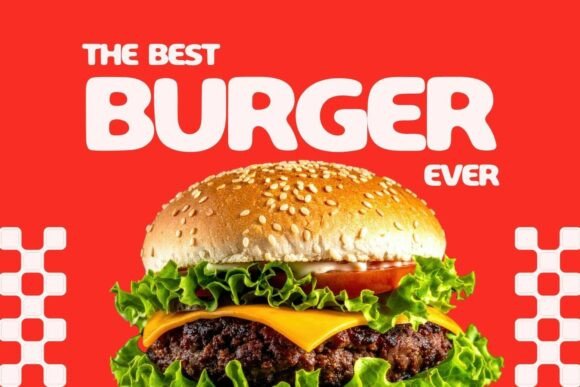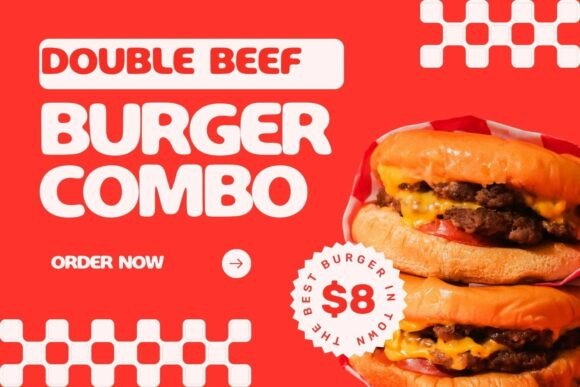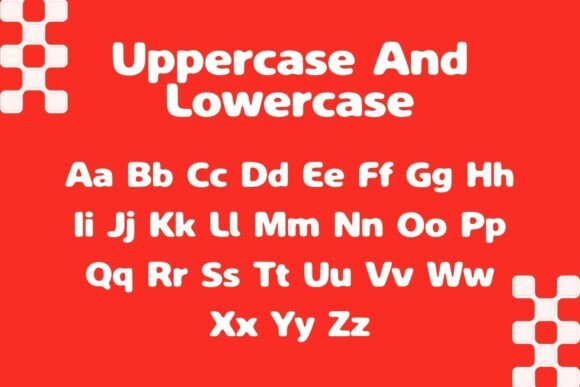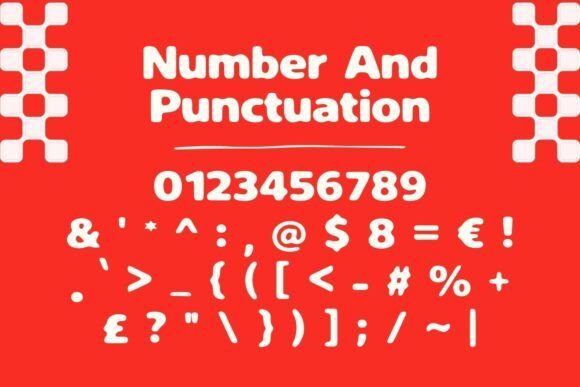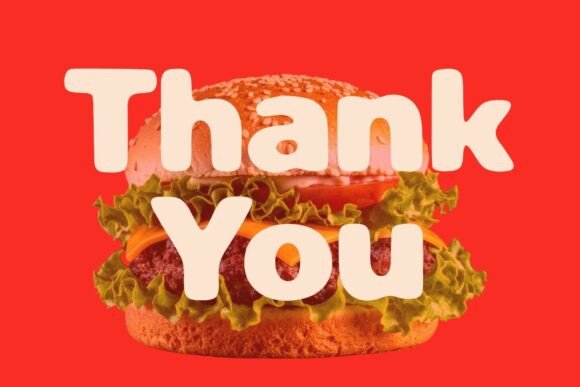
The Ultimate Font for Foodies and Designers: A Deep Dive into Burger Font
I’ll never forget the time I was working on a branding project for a trendy new burger joint. My client wanted a font that would make their menu look fun, energetic, and Instagram-worthy. I scoured the internet for hours, but nothing seemed quite right. That was until I stumbled upon Burger Font. It’s been a game-changer for my design projects ever since. In this article, I’ll share my love for Burger Font, its features, and how to make the most of it in your designs.
What Makes Burger Font So Special?
Burger Font is a bold, chunky, and playful display font that’s designed to grab attention instantly. Its thick, rounded letterforms, soft curves, and friendly cartoon style make it perfect for food branding and eye-catching promotions. Here are some of the features that I love:
- ✨ Bold and playful personality: Burger Font delivers a fun and energetic vibe that’s perfect for restaurant menus, burger branding, fast food promotions, posters, social media ads, packaging, banners, headlines, logo designs, and merchandise.
- ✅ Maximum readability: The bold structure ensures that your text is easy to read, even from a distance.
- 🔥 Cute and approachable vibe: The font’s smooth shapes and rounded edges give it a friendly, approachable feel that’s perfect for brands that want to connect with their customers.
- 🎉 100+ cute doodles: Burger Font comes with a bonus set of doodles that you can use to add a playful touch to your designs.
While Burger Font is an amazing addition to any design project, it’s not without its quirks. Here’s my honest review:
- ✨ Easy to read: Even at small sizes, Burger Font remains clear and legible.
- ✅ Highly versatile: You can use Burger Font for a wide range of projects, from restaurant menus to social media ads.
- 🎉 Fun and playful: The font’s bold personality is perfect for brands that want to stand out.
- ⚠️ Limited use for body text: Burger Font is best used for headlines and titles. Its bold personality can be overwhelming for longer blocks of text.
- 🤔 May not be suitable for formal projects: The font’s playful vibe may not be suitable for more formal projects, such as corporate branding or luxury packaging.
The Story Behind Burger Font
Burger Font was designed with foodies and designers in mind. The font’s creator wanted to create a bold, playful font that would capture the fun and energy of the food industry. With its thick, rounded letterforms and soft curves, Burger Font is the perfect choice for restaurant menus, burger branding, and fast food promotions.
Q: What is Burger Font best used for?
A: Burger Font is best used for headlines, titles, and promotional materials, such as restaurant menus, burger branding, fast food promotions, posters, social media ads, packaging, banners, and merchandise.
Q: Can I use Burger Font for body text?
A: While Burger Font is easy to read, it’s not ideal for longer blocks of text. Its bold personality can be overwhelming for body text.
Q: Is Burger Font suitable for formal projects?
A: The font’s playful vibe may not be suitable for more formal projects, such as corporate branding or luxury packaging.